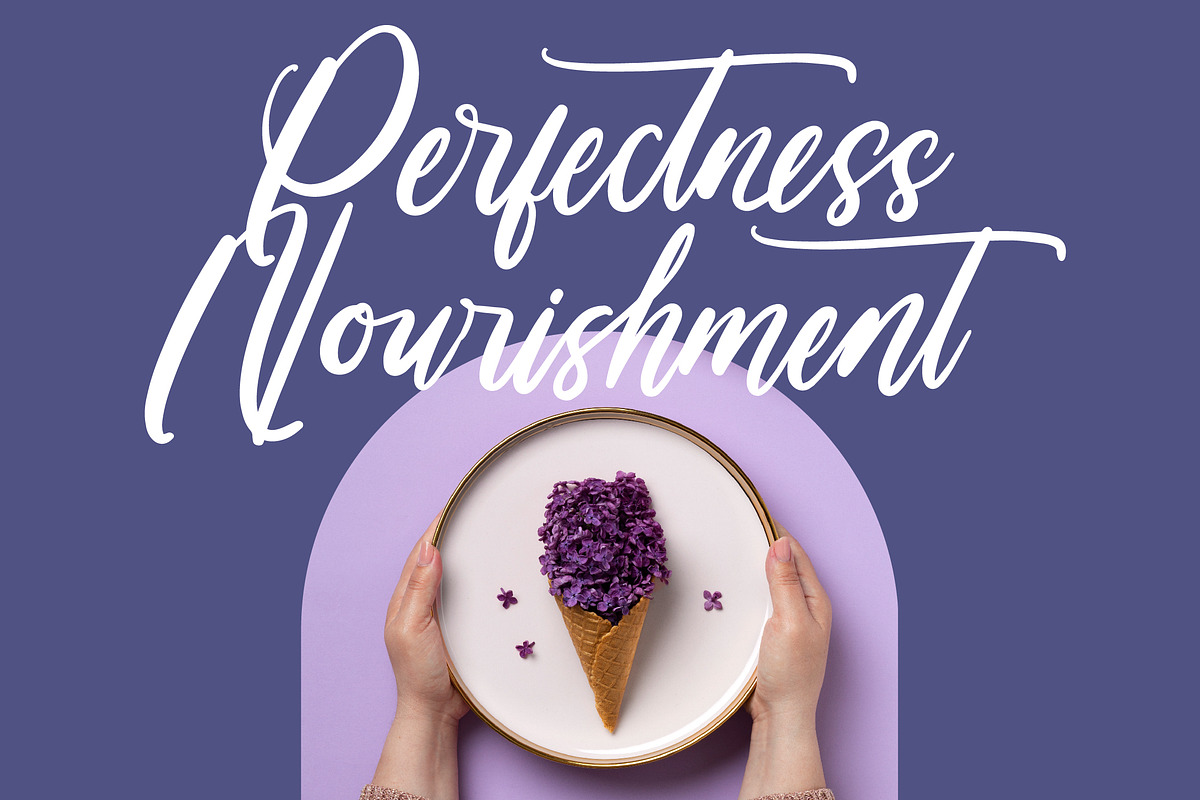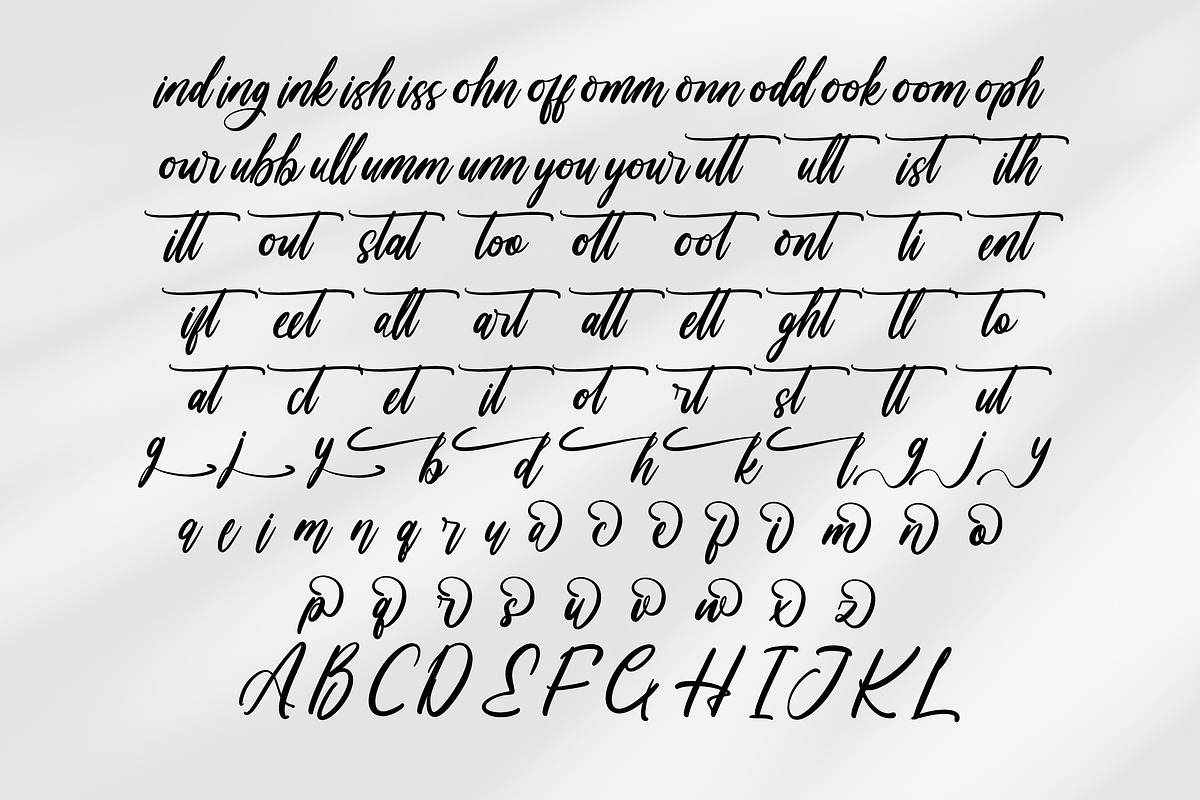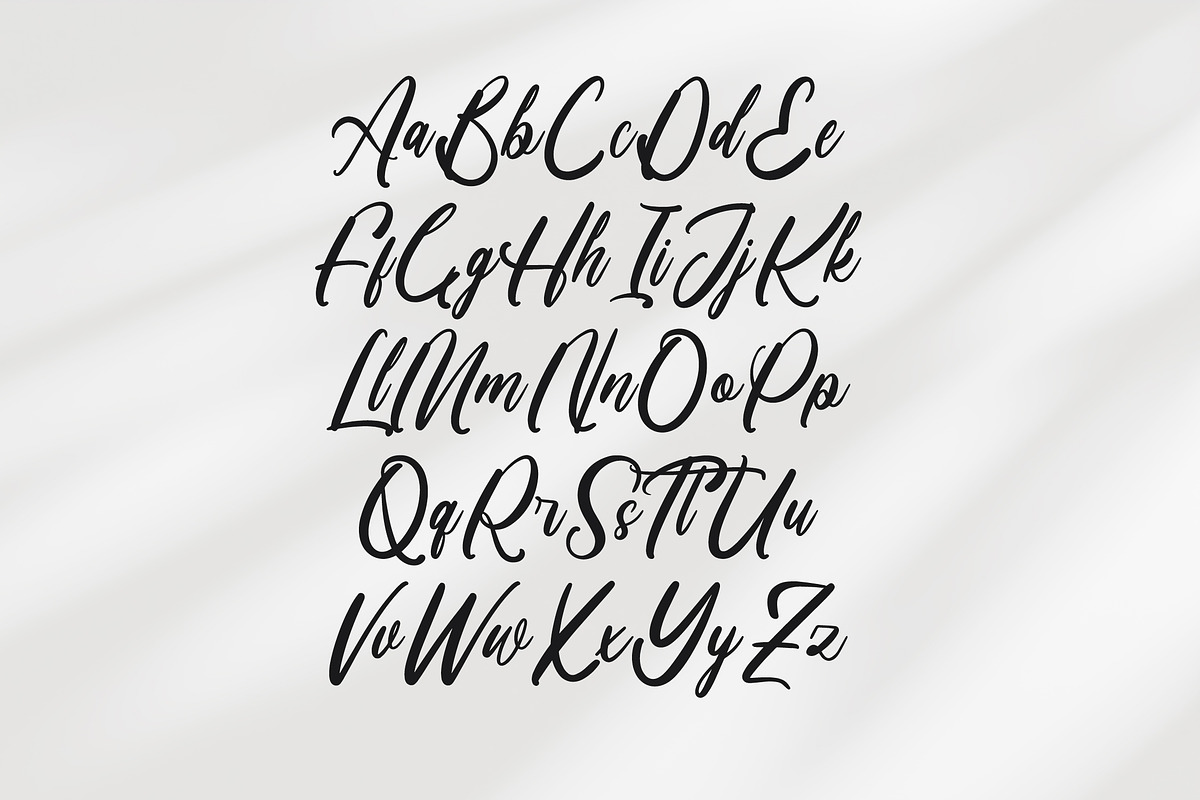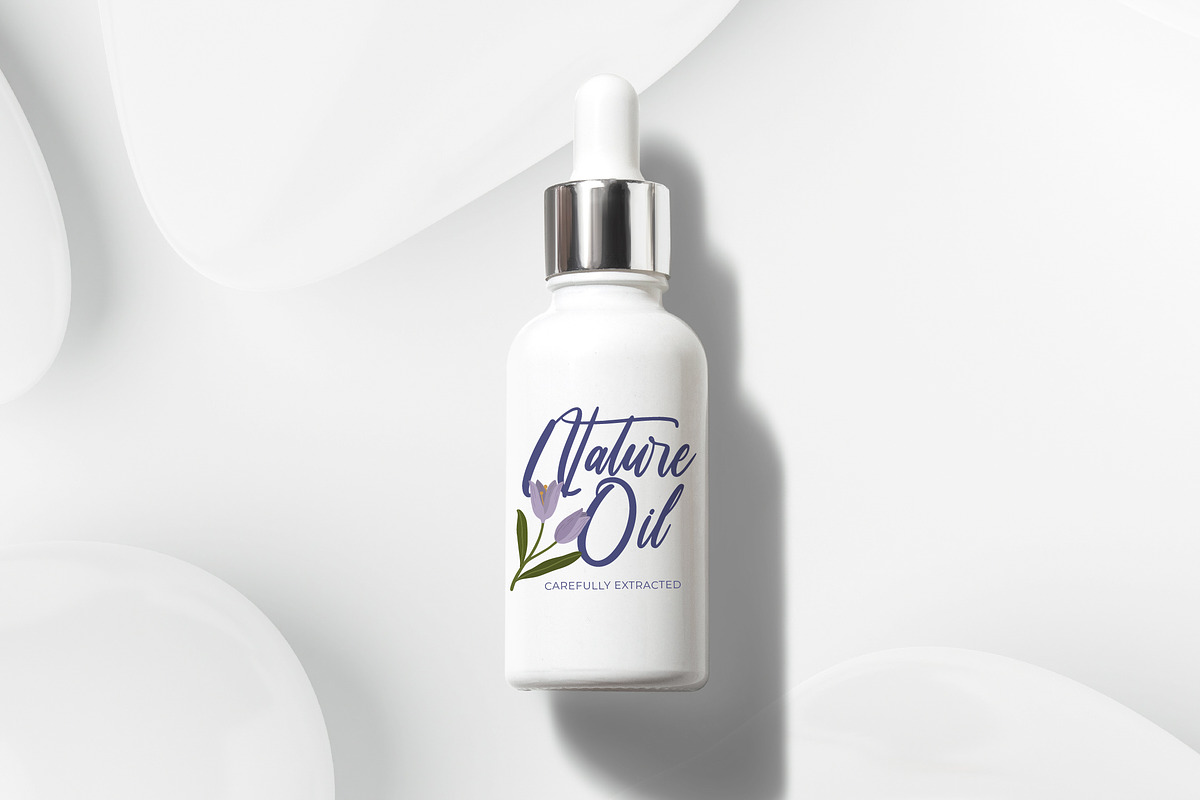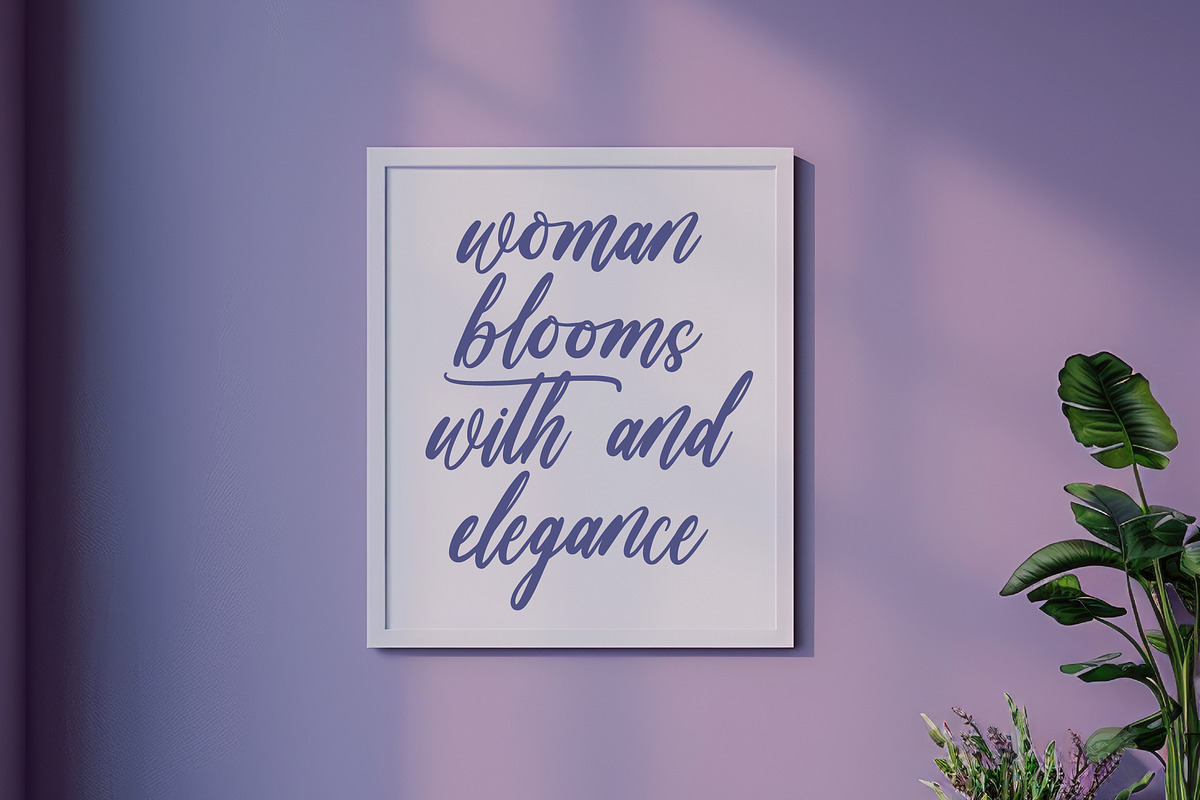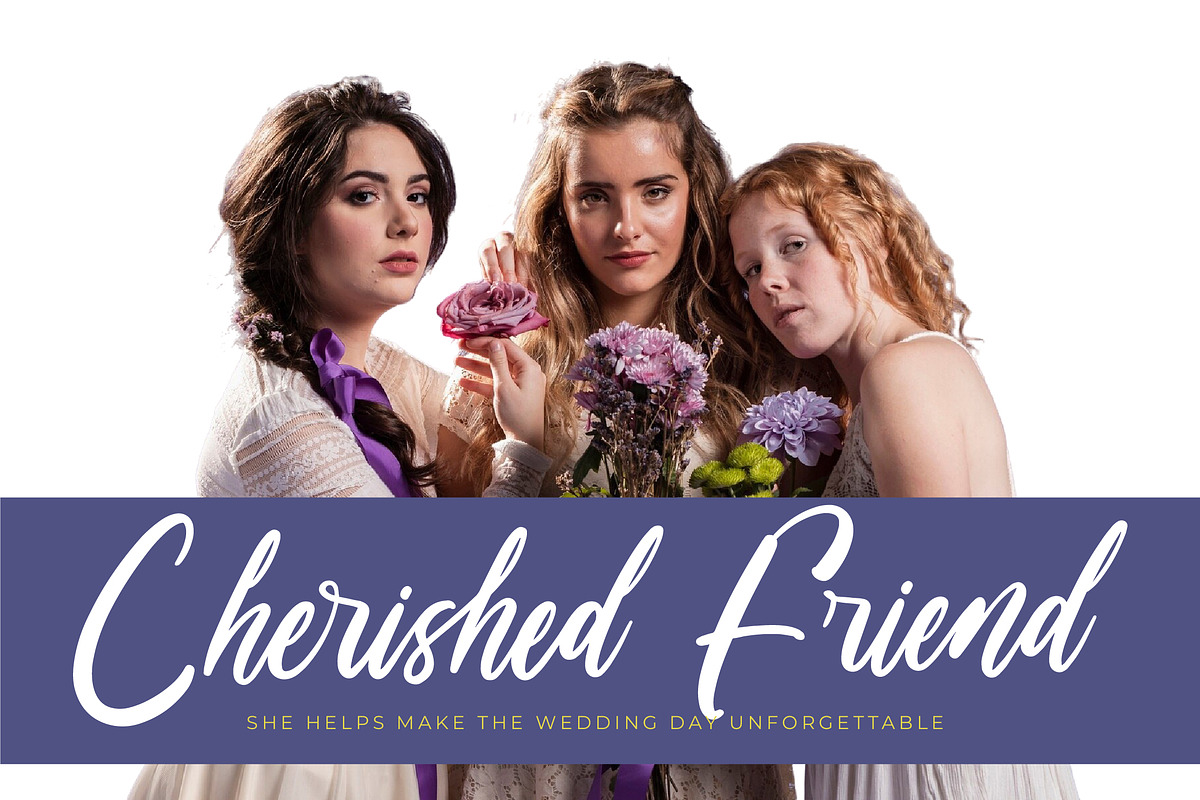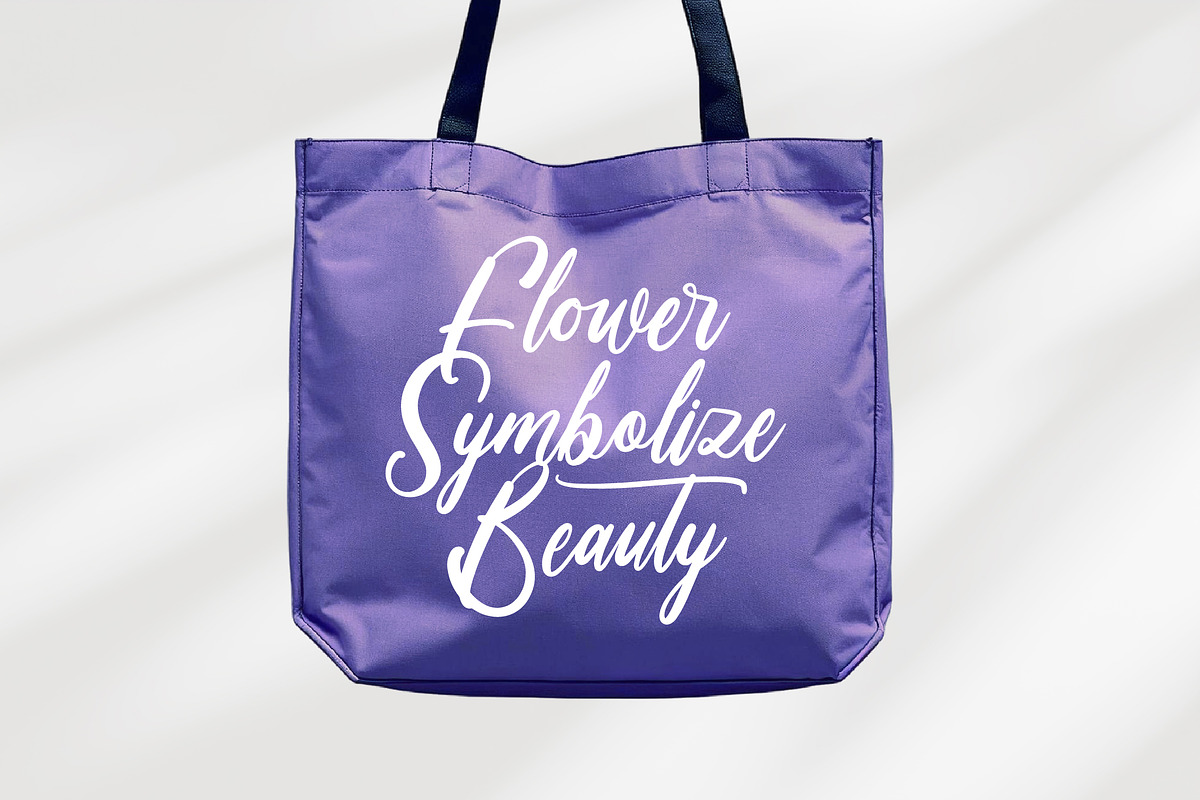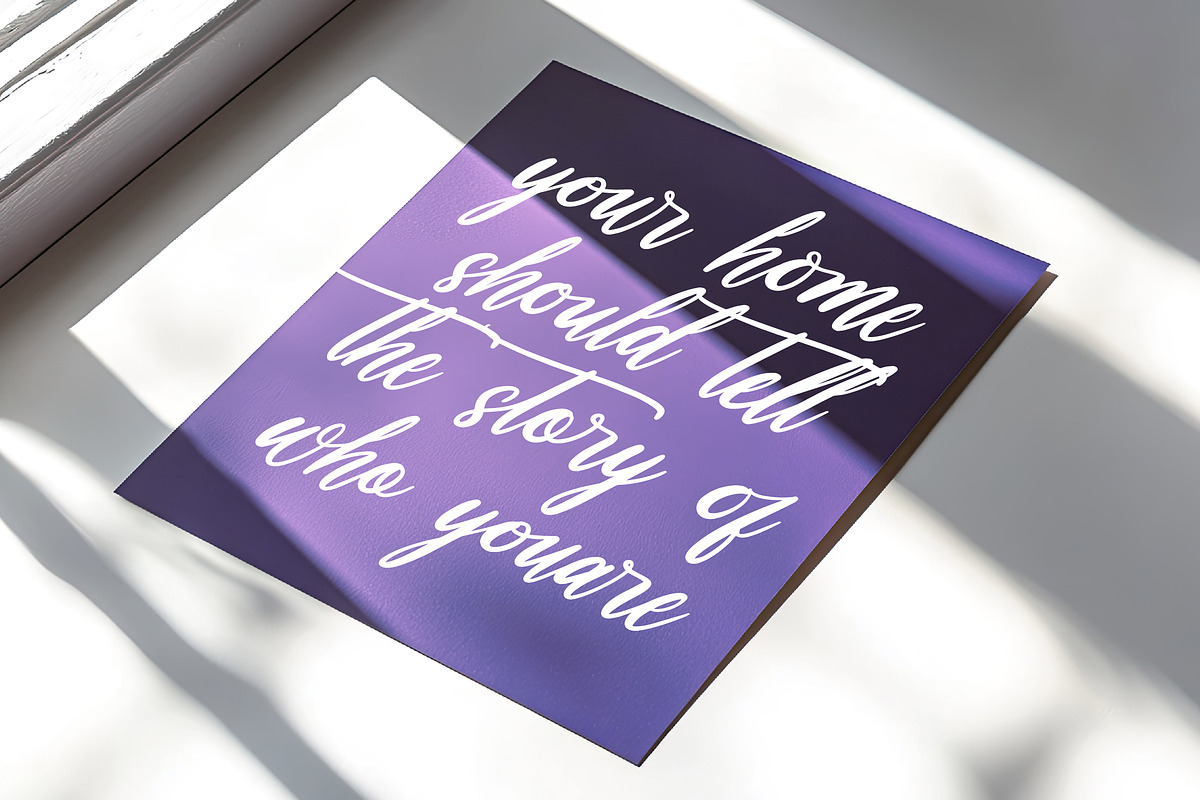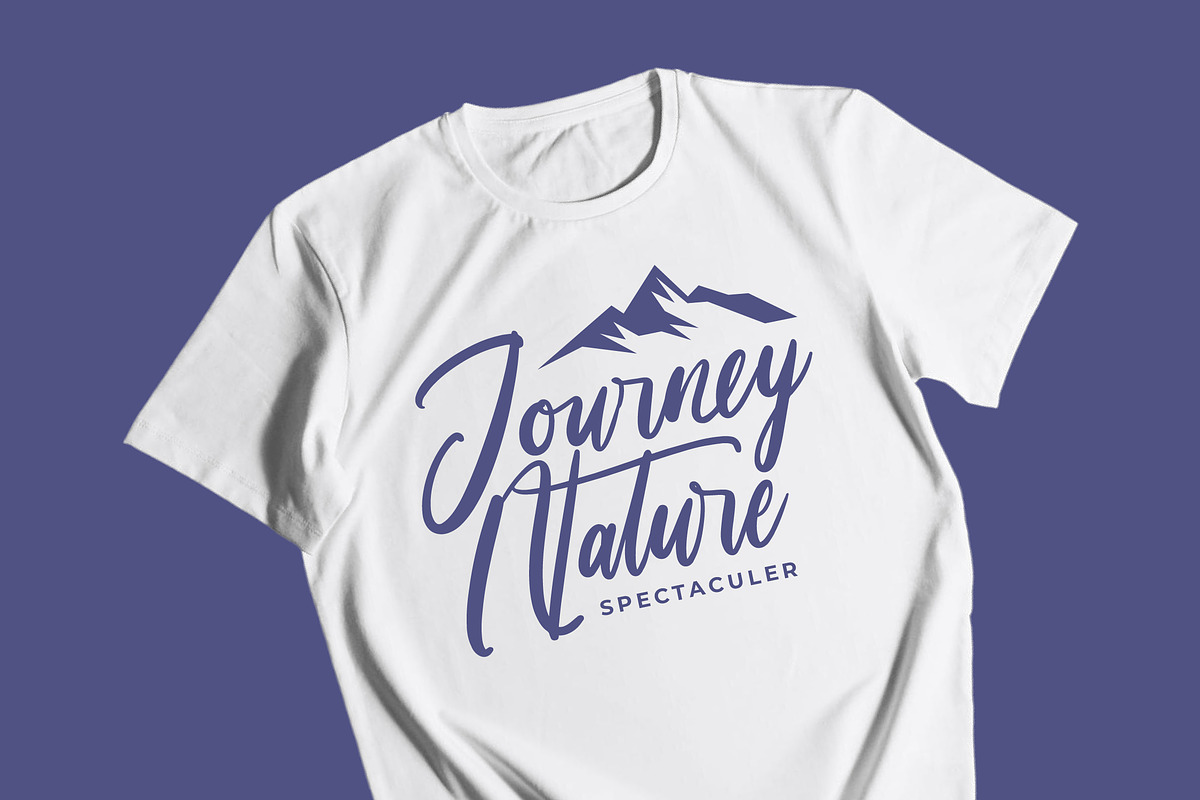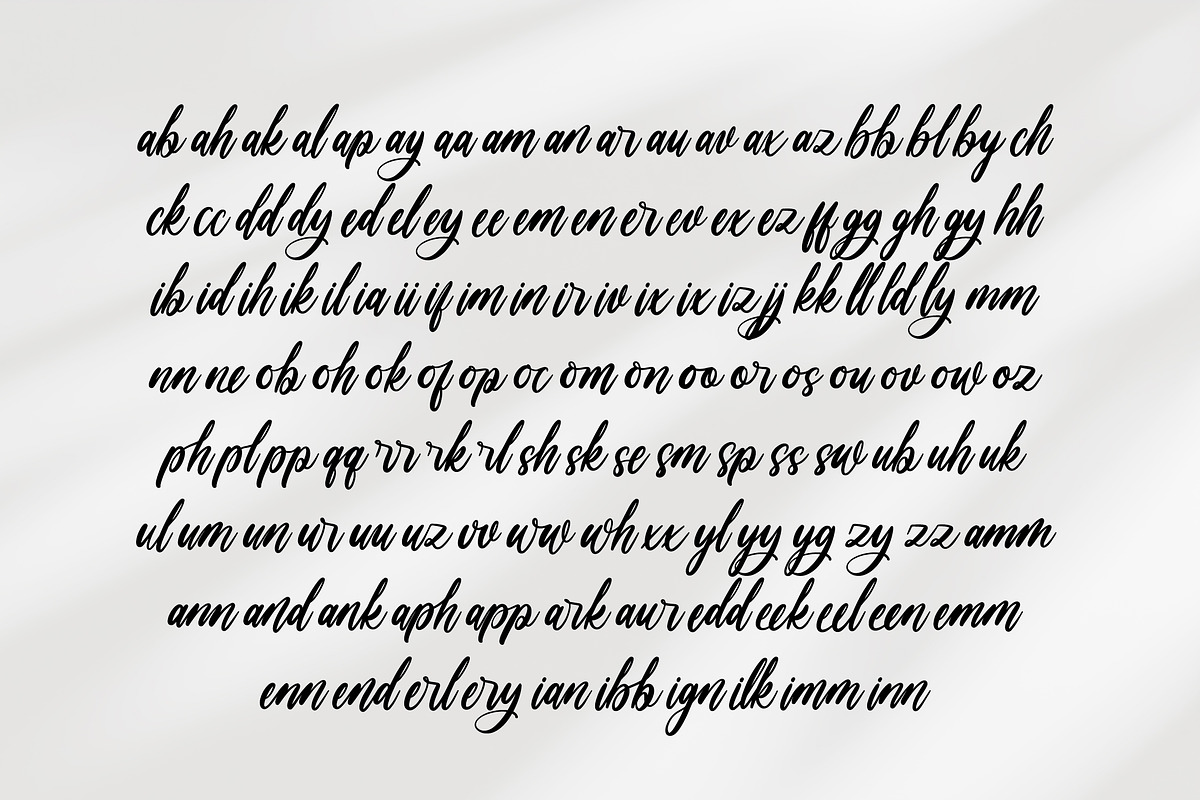
Shinerak Mottage Modern Handwritten
Shinerak Mottage - Modern Handwritten Font , Shinerak Molltage is a modern handwritten font that blends elegance and natural flow in every stroke. With 181 ligatures, 63 alternates, and 576 total glyphs, it offers endless possibilities for creative design. Perfect for logos, invitations, wedding stationery, quotes, and personal branding, Shinerak Molltage brings a sophisticated handwritten charm to any project. Its smooth curves and stylish calligraphic form make it both timeless and contemporary.